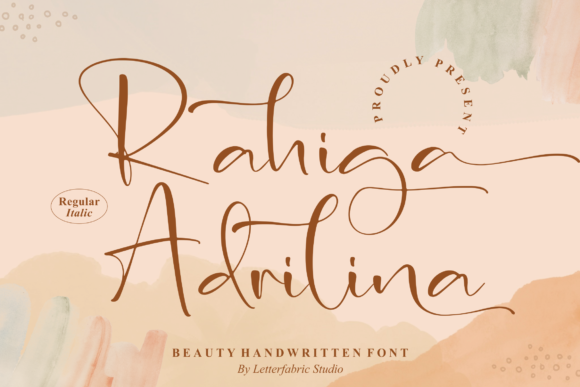
Behold, the Rahiga Adrilina Font, a script font family that epitomizes elegance and sophistication. Its meticulously crafted characters, reminiscent of a calligrapher's quill, dance across the page with a captivating rhythm and flow. Prepare to be mesmerized as this font transforms your designs into works of art.
With its delicate hairlines and sweeping curves, the Rahiga Adrilina Font exudes a timeless allure. Its graceful strokes evoke a sense of romance and charm, making it the perfect choice for wedding invitations, love letters, and heartfelt messages. The font's inherent versatility, however, extends beyond these traditional applications. Its ability to capture attention and convey emotions makes it equally suitable for logos, branding, and other marketing materials.
Imagine your logo adorned with the Rahiga Adrilina Font, its distinctive letterforms commanding attention and leaving a lasting impression on potential customers. The font's inherent elegance lends a touch of prestige and professionalism, setting your brand apart from the competition. Its refined aesthetic is sure to resonate with discerning audiences, fostering brand loyalty and recognition.
Step into the realm of captivating marketing materials with the Rahiga Adrilina Font as your trusted companion. Craft brochures, flyers, and posters that leap off the page, captivating readers with their visual appeal. The font's ability to convey messages with clarity and impact ensures that your marketing efforts hit the mark, leaving a lasting impression on your target audience.
The Rahiga Adrilina Font is not merely a collection of letters; it's an artistic expression that breathes life into your creative endeavors. With its innate ability to evoke emotions and convey messages, this font transforms ordinary designs into extraordinary experiences. Embrace the Rahiga Adrilina Font and embark on a journey of creative excellence.